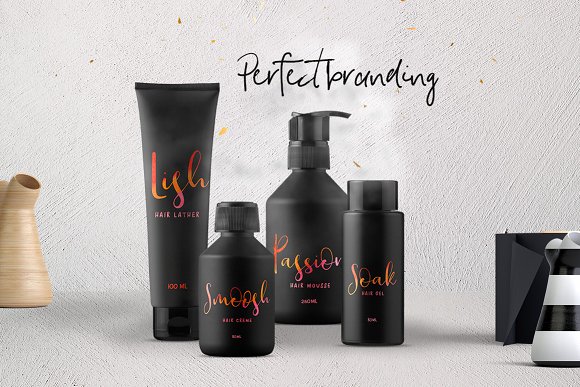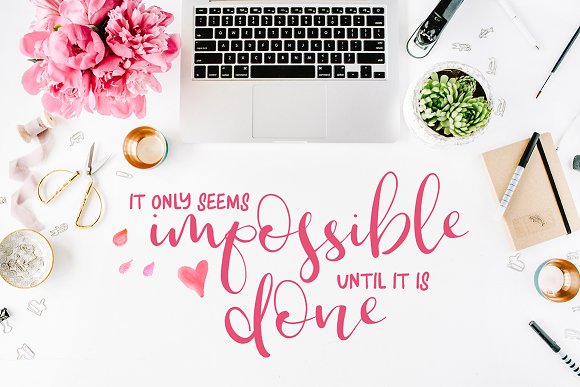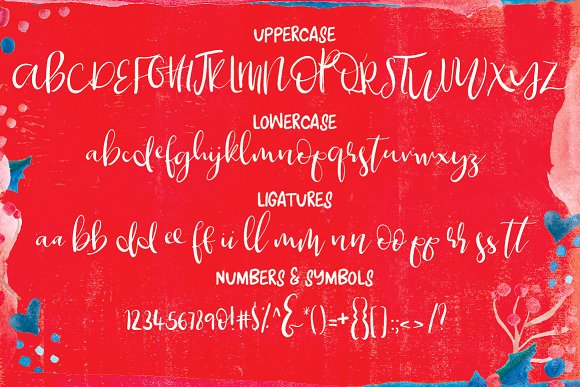
Introducing Boom & Farrow: A Beautiful Handcrafted Font by Creativeqube
Are you a designer or crafter looking for a unique and eye-catching font to elevate your creative projects? Look no further than Boom & Farrow, a stunning handcrafted font created by Creativeqube. In this article, we’ll dive into the details of this beautiful font, exploring its features, uses, and benefits for designers and crafters alike.
The Story Behind Boom & Farrow
Boom & Farrow is a labor of love from Creativeqube, a design studio known for its passion for crafting exceptional fonts. The font’s name, Boom & Farrow, evokes a sense of excitement and adventure, reflecting the font’s bold and playful personality. With its handcrafted design, Boom & Farrow offers a distinctive touch that’s sure to make your projects stand out from the crowd.
Key Features of Boom & Farrow
So, what makes Boom & Farrow so special? Here are some of its key features:
• Handcrafted with love: Each letter has been carefully crafted to ensure a unique, human touch that’s perfect for designs that require a personal feel.
• Beautifully designed: Boom & Farrow boasts an elegant, cursive style that’s ideal for a wide range of creative projects, from invitations and branding to packaging and more.
• Multilingual support: This font supports multiple languages, making it a versatile choice for designers working on international projects.
• Easily customizable: With its clear and simple design, Boom & Farrow can be easily customized to fit your project’s specific needs.
Uses for Boom & Farrow
Boom & Farrow is an incredibly versatile font that can be used in a variety of creative projects, including:
• Wedding invitations and stationery: Add a touch of elegance and sophistication to your wedding designs with Boom & Farrow’s beautiful cursive script.
• Branding and packaging: Use Boom & Farrow to create eye-catching logos, labels, and packaging that will help your brand stand out.
• Social media graphics: Elevate your social media presence with stunning graphics featuring Boom & Farrow’s elegant font.
• Signage and display: Use Boom & Farrow to create eye-catching signs, posters, and displays that will grab attention.
So, why should designers and crafters choose Boom & Farrow for their projects? Here are just a few benefits:
• Unique and distinctive: Boom & Farrow offers a fresh and unique perspective on traditional cursive fonts, ensuring your designs will stand out.
• Easily readable: Despite its elegant design, Boom & Farrow remains highly readable, even at smaller font sizes.
• Time-saving: With its comprehensive character set and easily customizable design, Boom & Farrow saves you time and effort in your design process.
In conclusion, Boom & Farrow is an exceptional handcrafted font created by Creativeqube that’s sure to elevate your designs and craft projects. With its elegant cursive script, multilingual support, and easily customizable design, Boom & Farrow offers a world of creative possibilities. Whether you’re a designer or crafter, this beautiful font is a must-have addition to your toolkit.